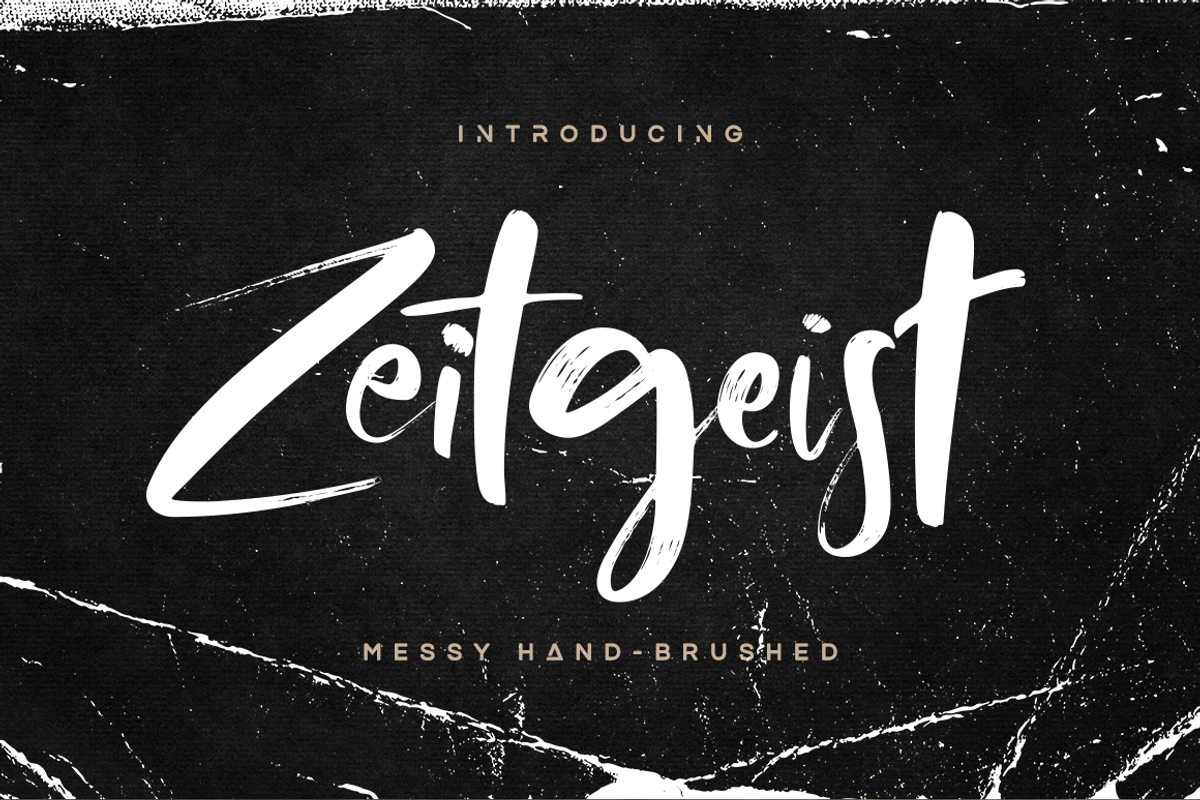
Zeitgeist Font
ZEITGEIST FONT | A messi hand-brushed
It’s playful, casual, and fresh, based on real handwritting. Available in 2 versions, regular & alternative. Both scripts are quite versatile and surely meant to grab attention yet bring positivity and excitement. Mix the characters up for more fascinating result!
- Zeitgeist Regular
- Zeitgeist Alternative
- Uppercase & Lowercase (2 styles)